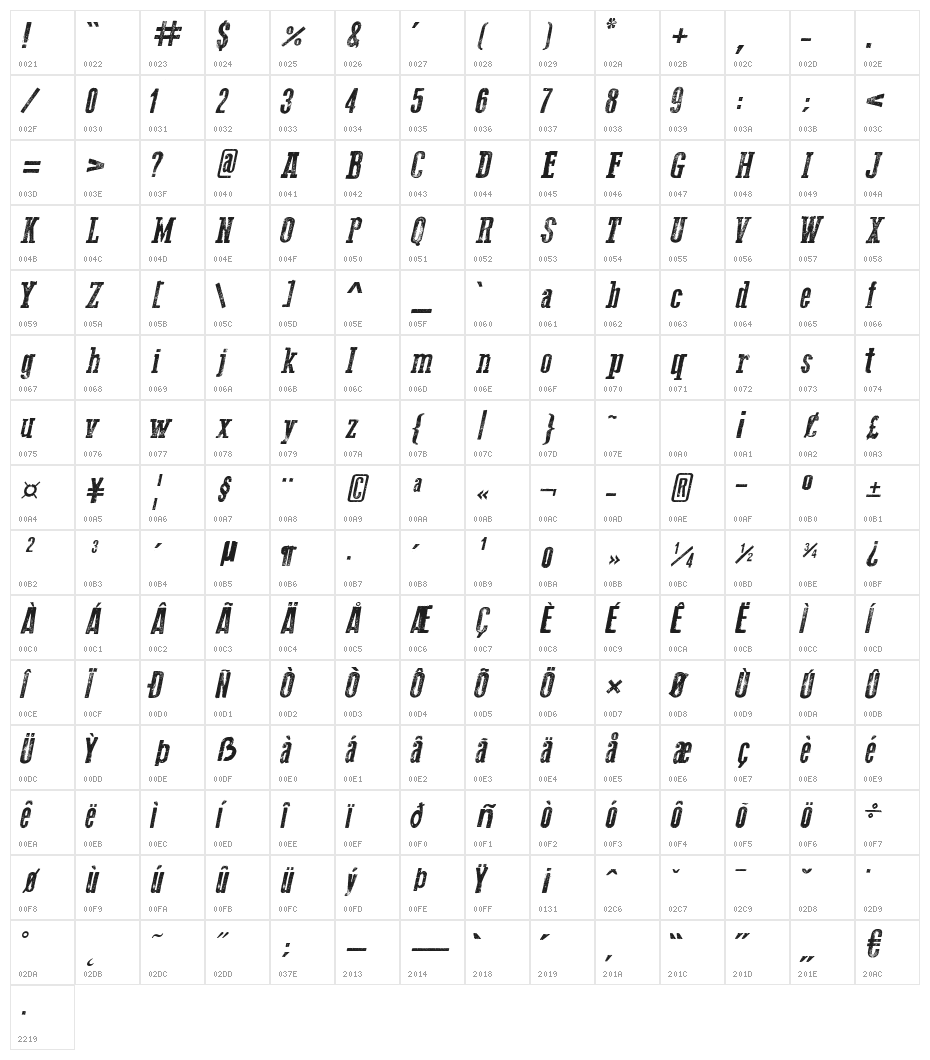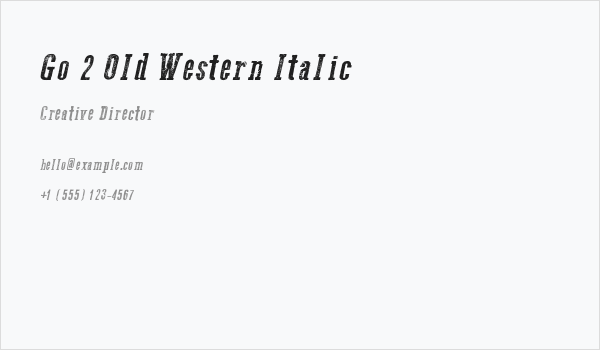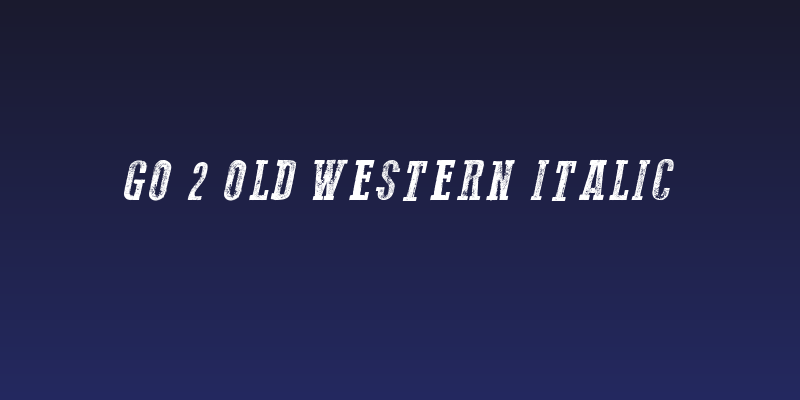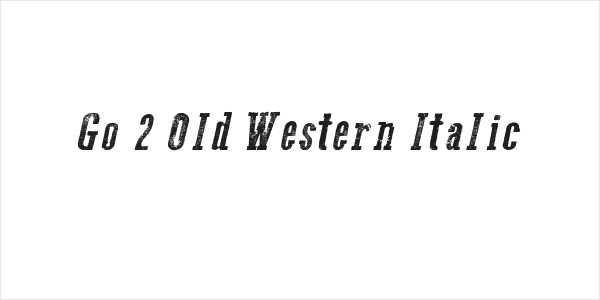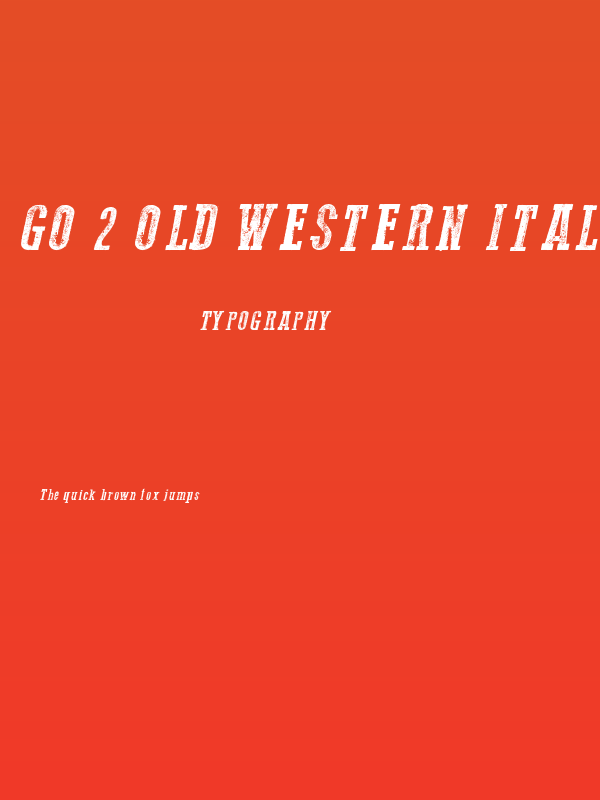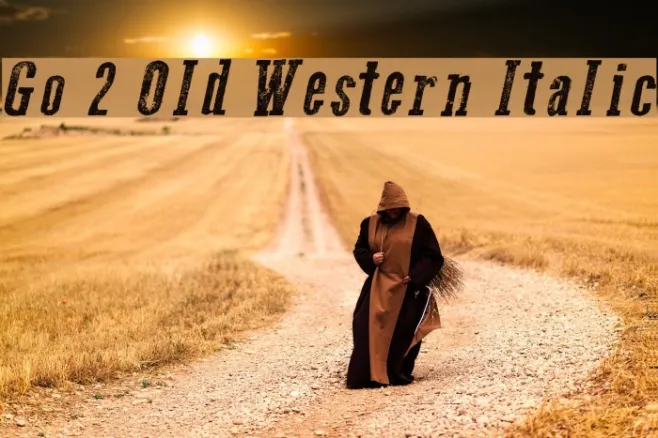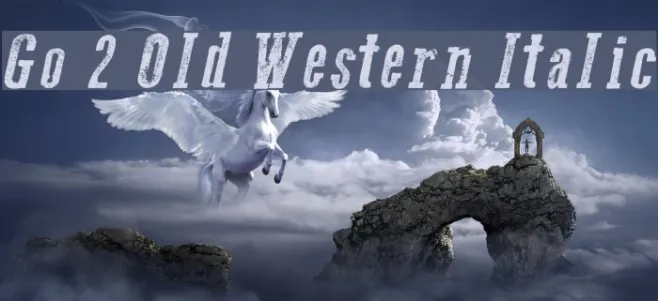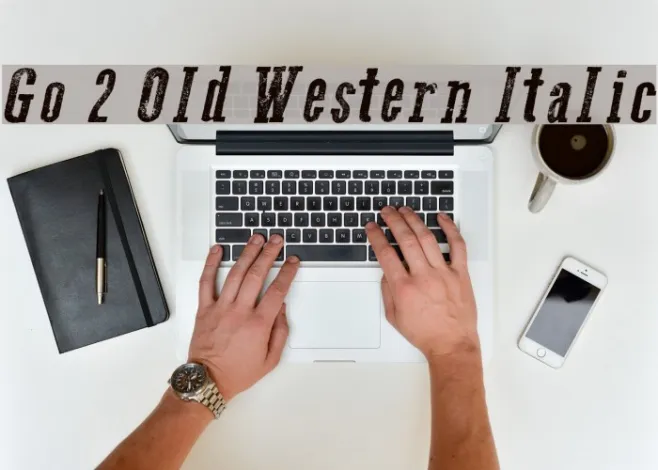
Go 2 Old Western Italic Font
Go 2 Old Western Italic Description
This font exudes a rugged, vintage charm reminiscent of the Old West. Its bold, italicized characters are designed with a distressed texture, giving it an authentic, weathered look. The uppercase and lowercase letters maintain a consistent style, with sharp serifs and a slight slant that enhances its dynamic appearance. The numerals and special characters follow the same aesthetic, making it a cohesive choice for projects seeking a rustic or historical feel. The font's unique style is perfect for creating a strong visual impact, with its bold strokes and textured finish adding depth and character.
| Proposed Projects | Ideal for vintage-themed posters, Western-style branding, rustic signage, and historical recreations. |